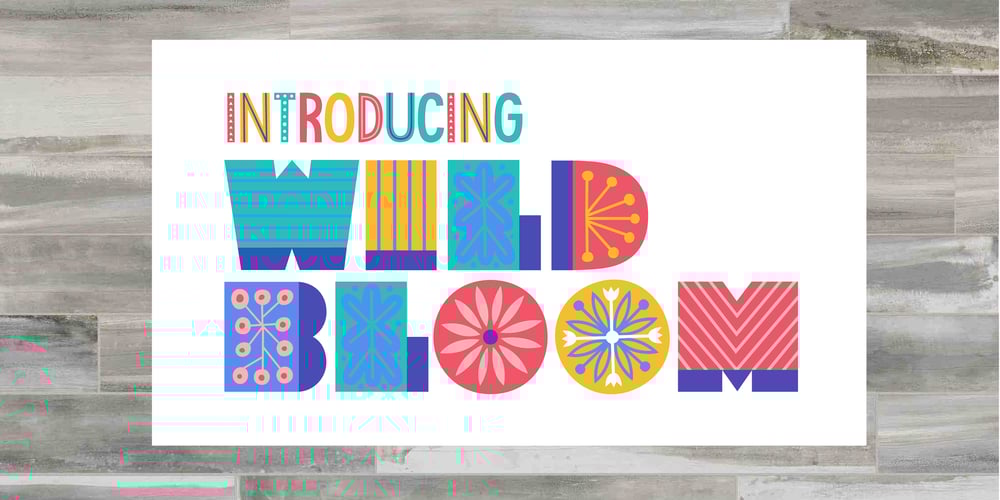
Wild Bloom
Wild Bloom font
Wild Bloom Font Family was designed by Juliana Pedemonte and published by Sudtipos. Wild Bloom contains 1 styles and family package options. Wild Bloom is a whimsical, joy-provoking, soul-comforting COLOR FONT suitable for any project that requires putting smiles on faces. It is perfect for your social media posts, logos, stationery, children’s books, packaging design, typographic posters … the list goes on. You can expand the font’s existing color palette and pick your own; it also comes with alternate characters to improve your experience. A specially designed black and white version of the font is included with full OpenType support covering Latin languages. (See below for technical info) Wild Bloom is a collaborative typeface based on the lettering of Juliana Pedemonte and produced by Ale Paul. Package: Wild Bloom comes in file with a pre-defined color palette. You can always change the colors converting the text to outlines. Technical info to use: The package contains a normal TTF/OTF font in Black and White and a colorfont in SVG-TTF format. To be able to use the color file you need to have installed Adobe Photoshop CC2017 or Adobe Illustrator CC2018. Not all the browsers support color fonts so please be sure to use them as graphics.